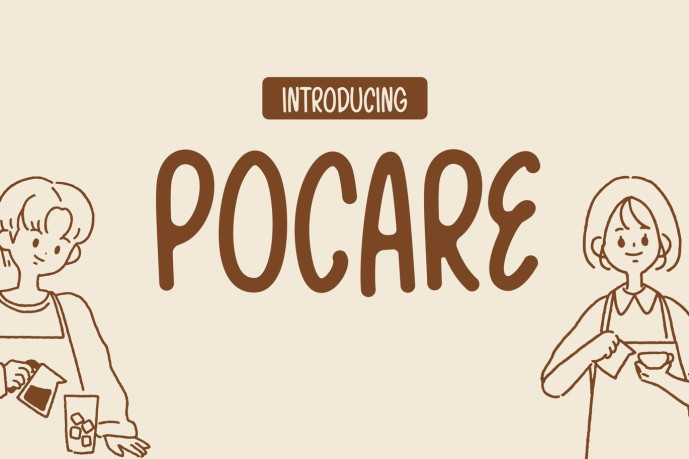
Pocare – Cafe Branding Font
bakeries, and lifestyle brands that want to create a warm and welcoming impression. Featuring soft rounded shapes, organic curves, and a friendly handwritten feel, Pocare brings personality and authenticity to every design.
Inspired by cozy coffee corners, slow mornings, and meaningful conversations, this display font combines readability with handcrafted character. Its approachable letterforms make headlines feel inviting while helping brands communicate comfort, creativity, and everyday joy. Whether used for café signage, coffee packaging, menus, social media graphics, or product labels, Pocare delivers a relaxed and memorable visual experience that feels genuine and human.
A great café brand is more than coffee—it’s about atmosphere, connection, and memorable experiences. Pocare helps designers capture that feeling through playful handcrafted lettering that instantly creates warmth and familiarity. Perfect for branding, packaging, menu design, posters, social media content, and promotional materials, Pocare gives businesses a friendly voice that customers can easily connect with. From artisan coffee brands to handmade product packaging, this font helps transform simple messages into inviting visual stories.